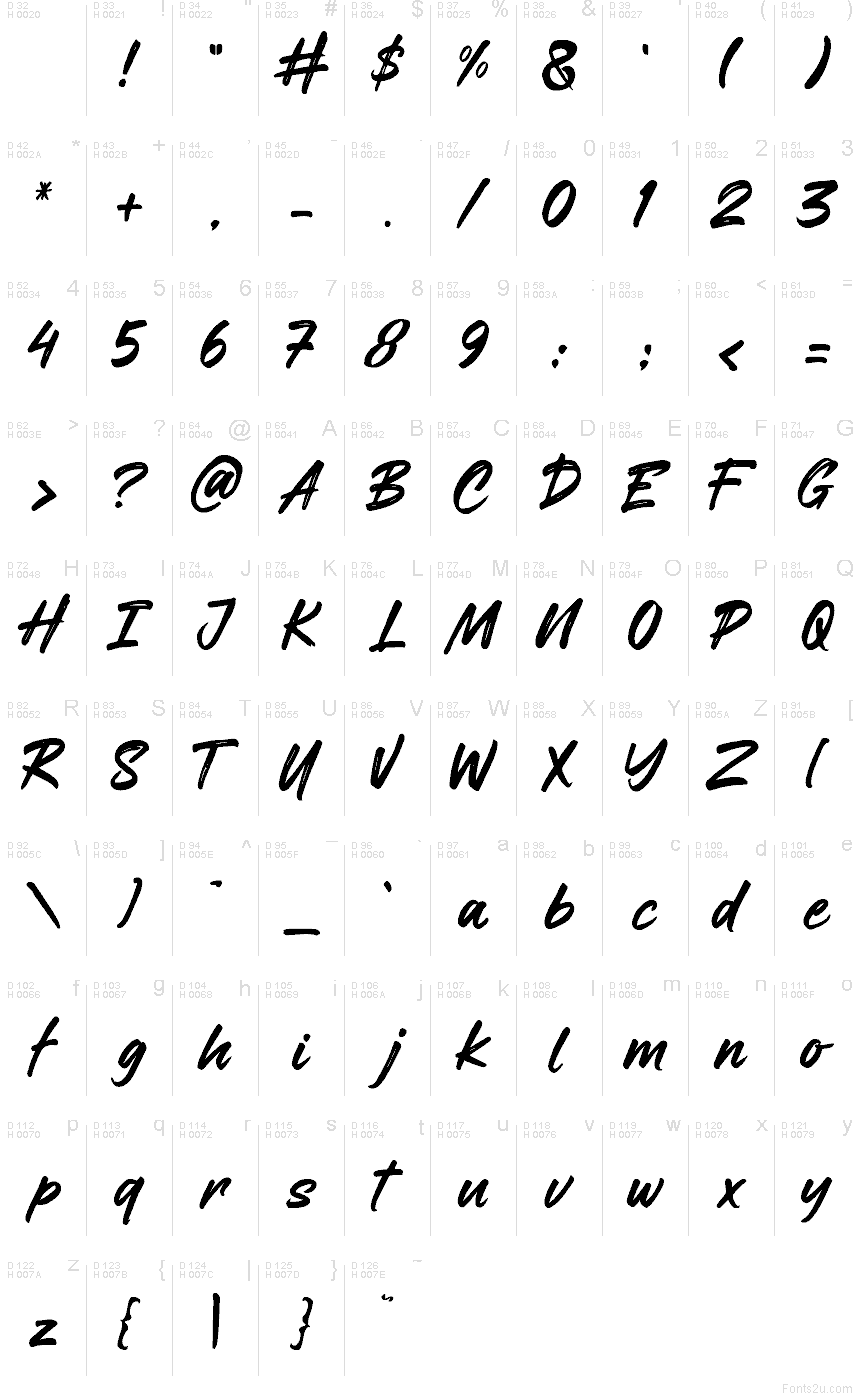
Master of Custom
Master of Custom font by BlackFridayFont FMF is a free brush script typeface with the swagger of hand-painted logos and custom shop lettering. The strokes look inky and confident, with smooth, slanted forms that feel fast and slightly gritty, like they’ve been pulled across a panel in one motion. Tight connections and consistent rhythm give it a strong, unified wordshape that reads clearly even when you push the size up on posters or branding.
Using Master of Custom, you’ll get a natural fit for logo lockups, apparel graphics, signage, badge designs, product packaging, and social media headers that need a custom-lettered attitude. This free font shines on anything related to motors, streetwear, skate, coffee, or craft brands that want energy without looking messy. Pair it with a clean geometric sans in small caps for taglines, and let Master of Custom handle the bold, attention-grabbing main line.